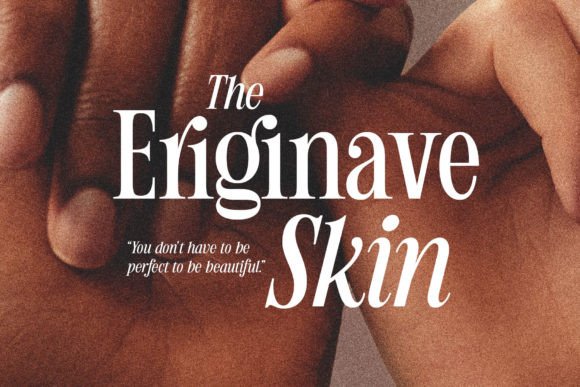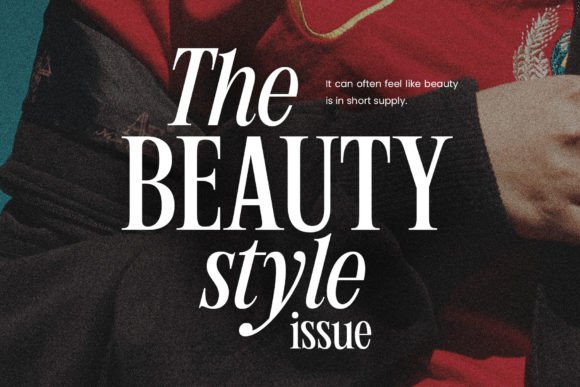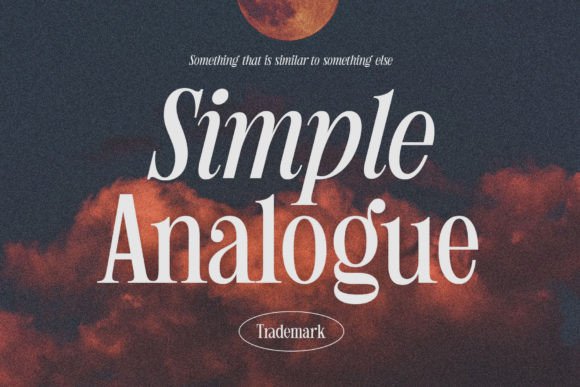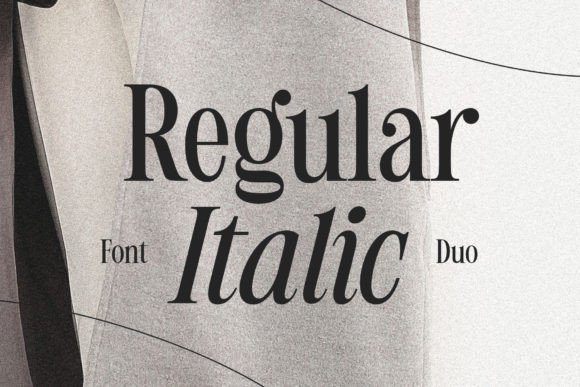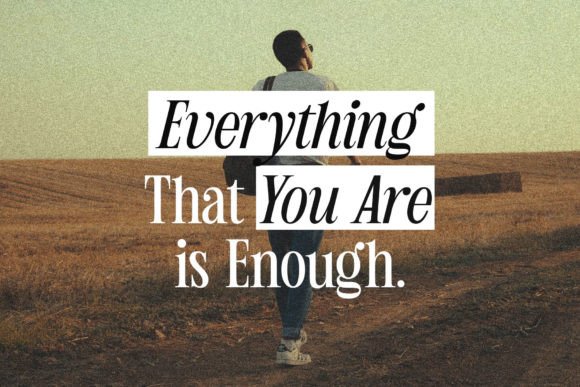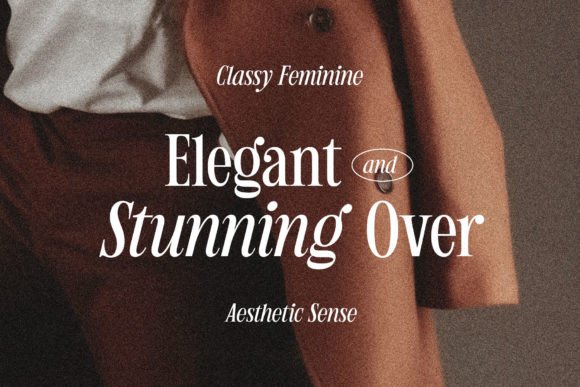
Step Back in Time with the Humble Nostalgia Font
Have you ever been browsing through your old family photos, stumbled upon a VHS tape from the 80s, or dusted off an old vinyl record, and suddenly been hit with a wave of nostalgia? For many creatives, these moments spark inspiration and transport us back to a bygone era of simplicity and charm. It’s this same feeling that the Humble Nostalgia Font aims to evoke, bringing a touch of classic elegance to modern designs.
As a versatile font, Humble Nostalgia Font is perfect for designers looking to add a timeless feel to their work. With its tight kerning and spacing, this font is a valuable addition to any designer’s toolkit, suitable for a wide range of projects from fashion and cosmetics to branding and posters.
Humble Nostalgia Font Key Features
- Font Family: Humble Nostalgia
- Unique Characteristics: The Humble Nostalgia font features a distressed, vintage aesthetic with subtle texture and imperfections, giving it a unique and nostalgic feel.
Humble Nostalgia Font Review
As a designer, I’ve had the chance to work with the “Humble Nostalgia Font” on a recent project, and I’m excited to share my thoughts on this retro-inspired font.
The font’s unique blend of vintage and modern elements creates a distinctive look that’s perfect for projects with a nostalgic feel.
The font’s legibility is excellent, making it suitable for a wide range of applications, from body text to headlines.
The font comes in a variety of weights, from light to bold, allowing designers to customize the look to suit their needs.
The font may be too nostalgic for some projects, potentially coming across as too retro or kitschy.
The font’s limited language support may be a concern for designers working with non-English languages.
Overall, I think the “Humble Nostalgia Font” is a solid choice for designers looking to add a touch of nostalgia to their projects. While it may have some limitations, its unique look and excellent legibility make it a worthwhile investment for those who want to stand out from the crowd.
Some tips for getting the most out of Humble Nostalgia Font include:
– Using it for retro-themed designs and branding.
– Combining it with other fonts for a unique and eclectic look.
– Experimenting with different font sizes and styles to create visual interest.
– Using it for invitations, posters, and other promotional materials.